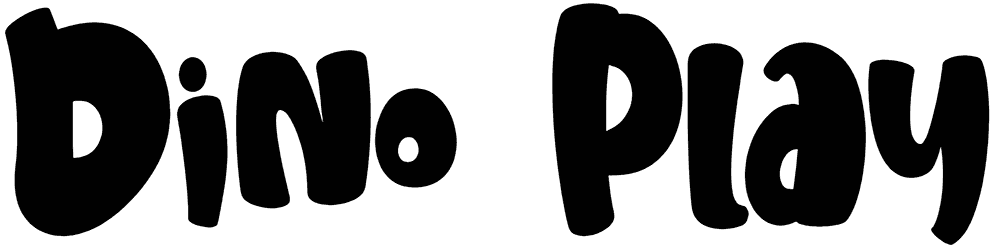
Dino Play Font
You can set this dinosaur font on a casual t-shirt or a kindergarten poster, and be sure, the final showcase will be surprising. The Dino Play font has bulky and funny letters that could be suitable for varied playful de…
You can set this dinosaur font on a casual t-shirt or a kindergarten poster, and be sure, the final showcase will be surprising. The Dino Play font has bulky and funny letters that could be suitable for varied playful designs. Apply this cartoon font to your intended idea and leave a sweet first impression on your viewers.